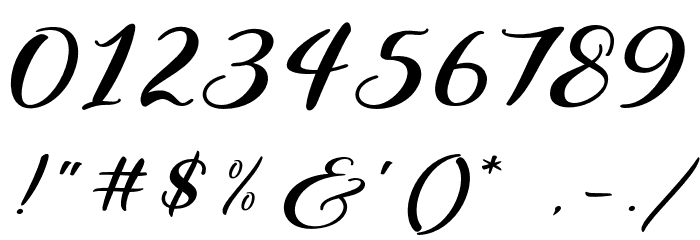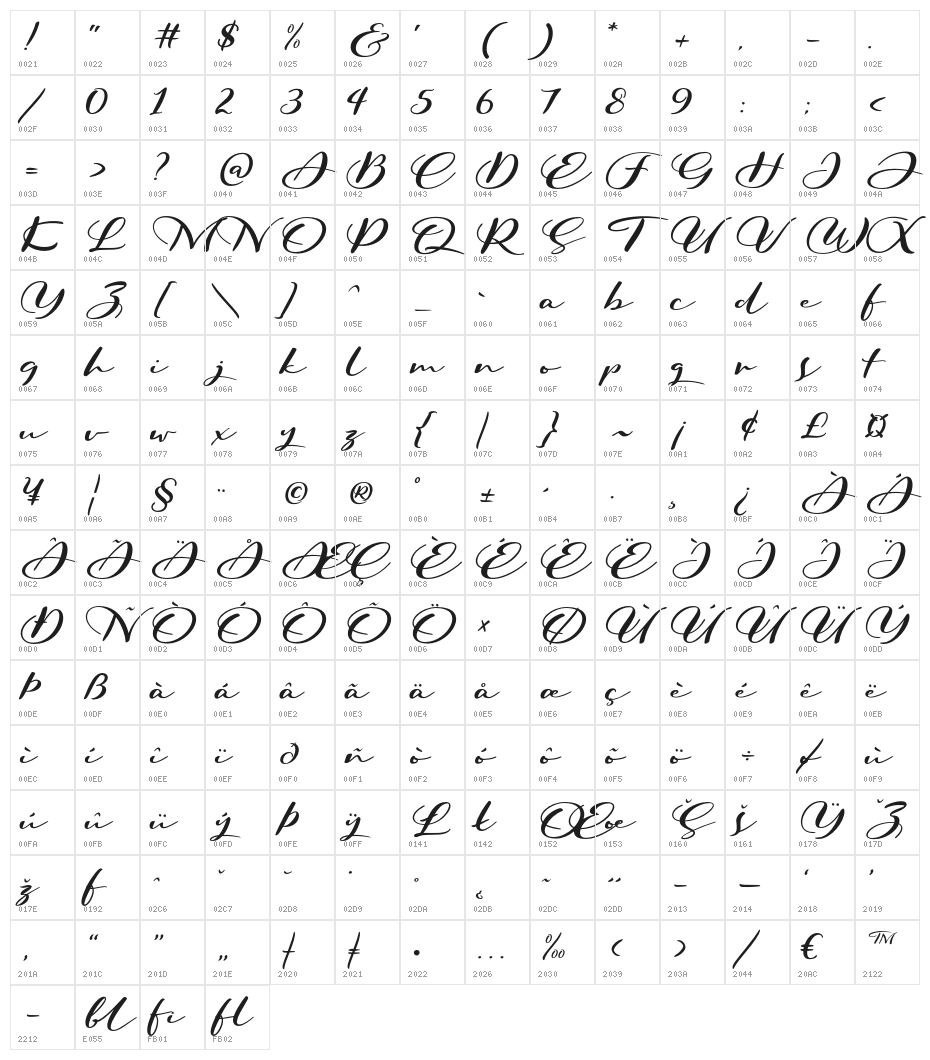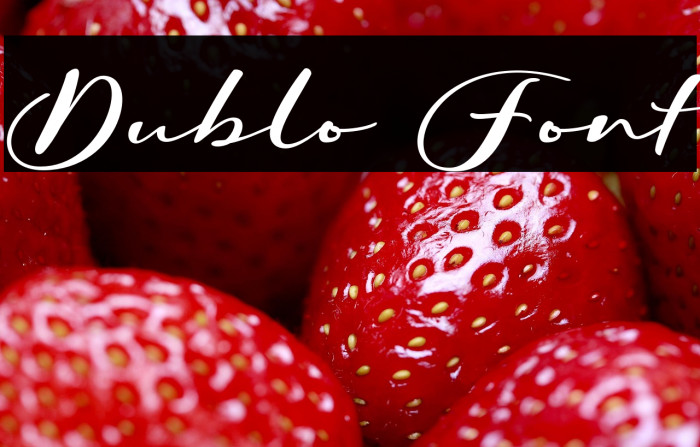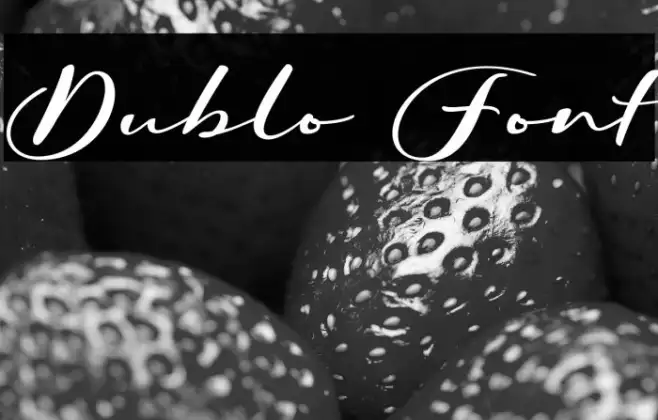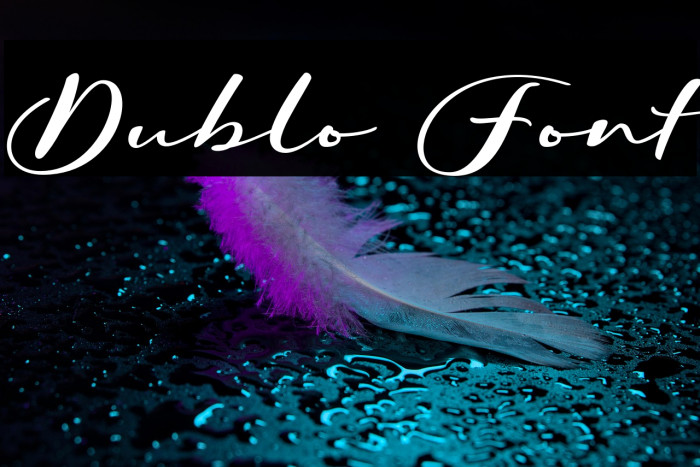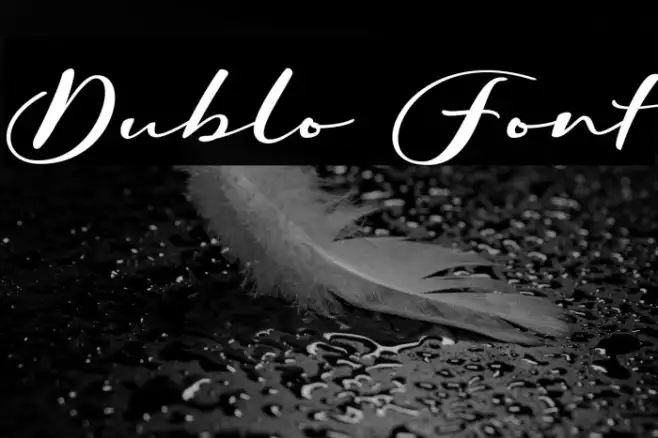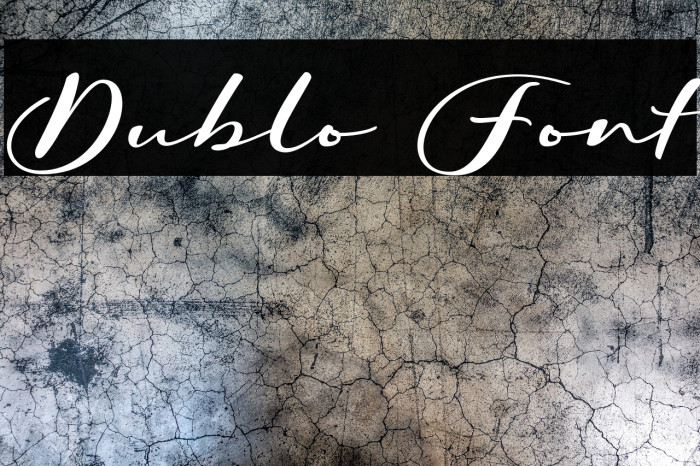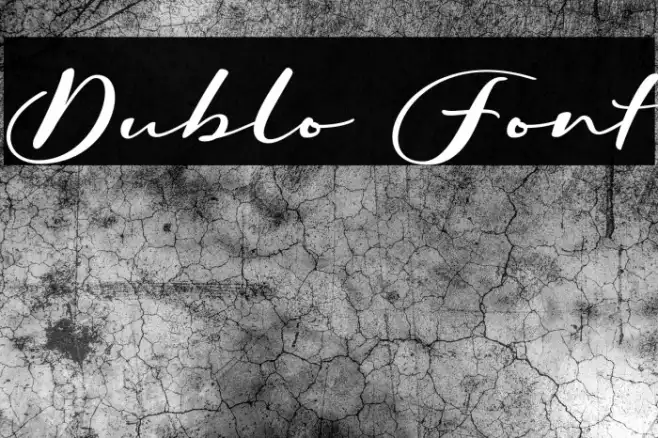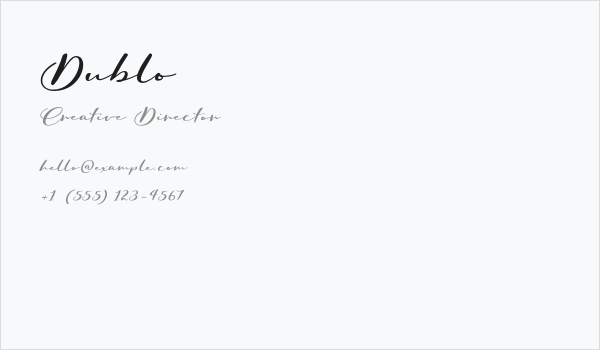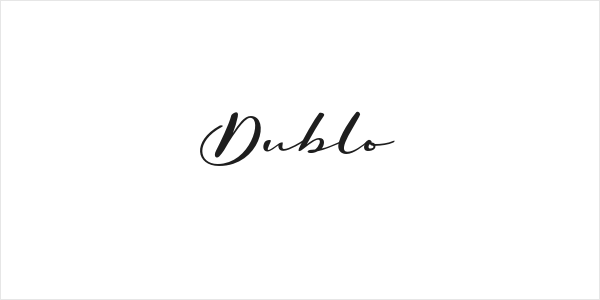
Dublo Font
Dublo Description
This font features an elegant and flowing script style, characterized by its smooth, cursive strokes and graceful curves. The uppercase letters exhibit a sophisticated flair with sweeping lines, while the lowercase letters maintain a consistent, fluid motion. The numerals are bold and slightly italicized, adding a touch of dynamism. Special characters are intricately designed, complementing the overall aesthetic. The font's design exudes a sense of refinement and artistic expression, making it suitable for projects that require a touch of elegance and creativity.
| Proposed Projects | Ideal for wedding invitations, elegant branding, greeting cards, and artistic posters. |